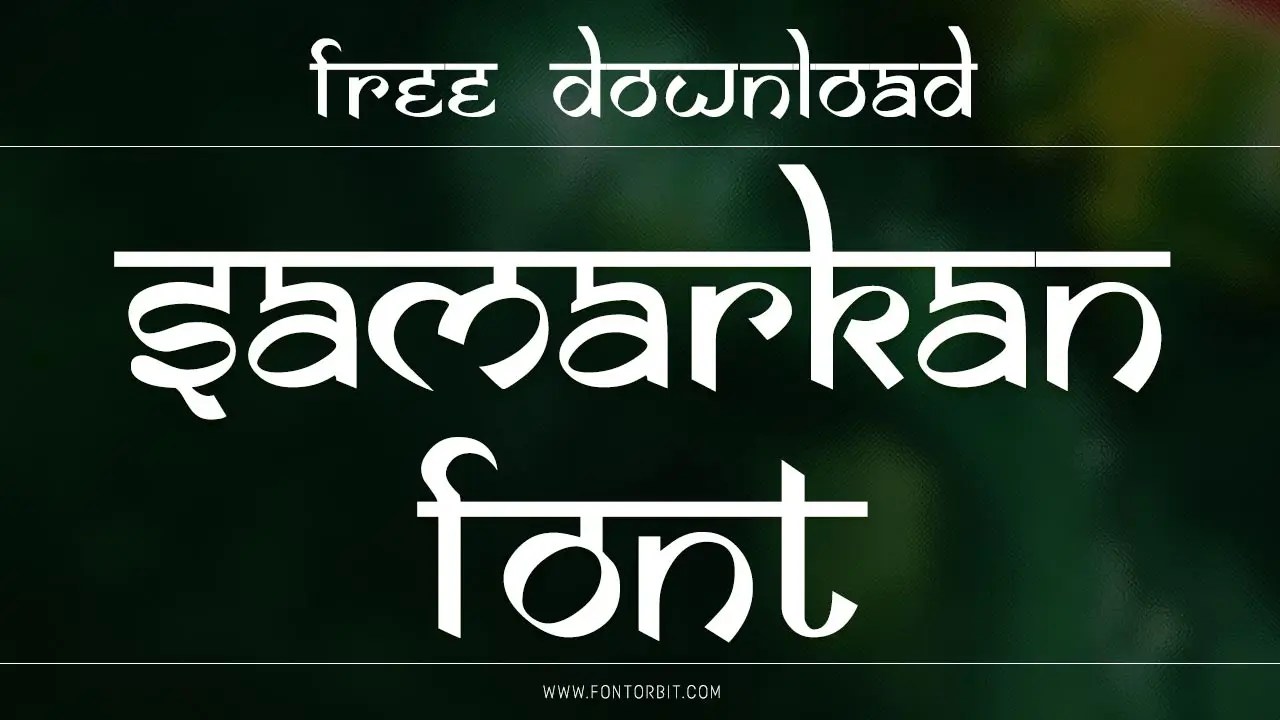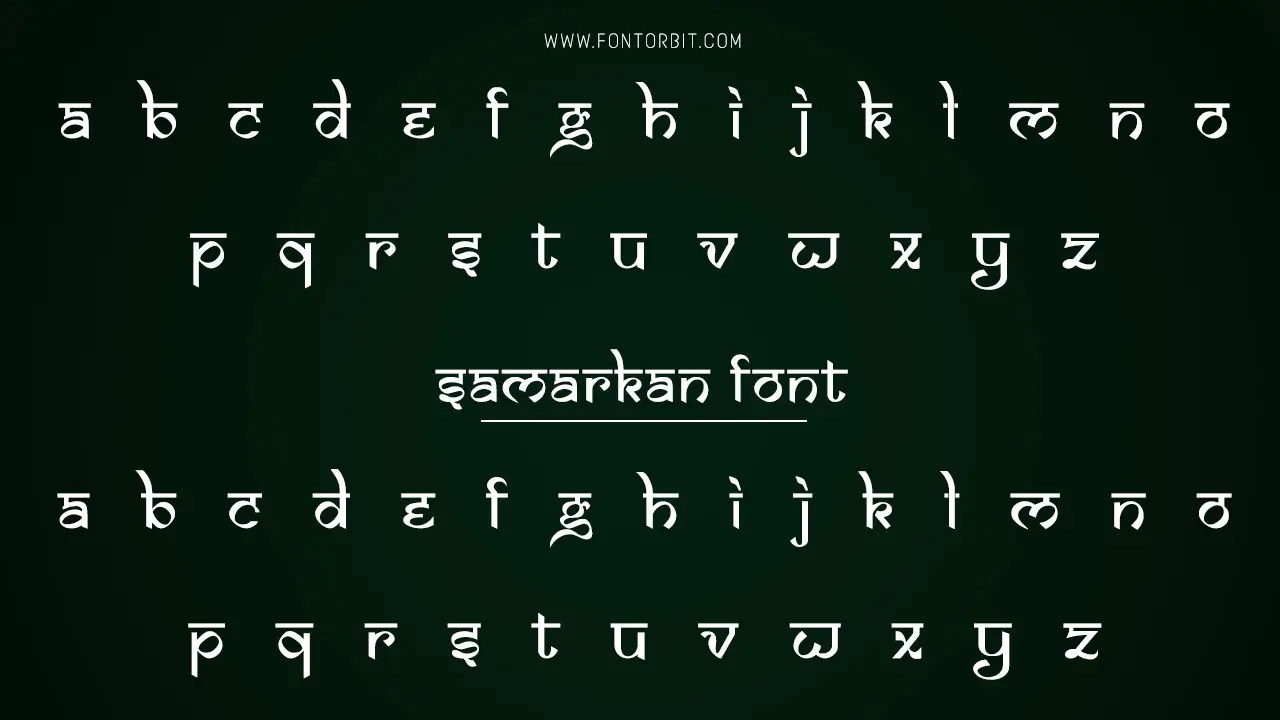
The Samarkan Font is an eye-catching typeface inspired by Hindi font aesthetics. Designed by Titivillus Foundry, with its distinctive handwriting font style, this normal TrueType font is widely used in branding, web design, and logo creation. If you’re working on a design project that requires an Indian or cultural theme, Samarkand is a perfect choice.
Samarkan Font Information & Features
The Samarkand Font Family includes:
- Samarkan Normal
- Samarkan Oblique
Key Features:
- Category: Handwriting & Decorative
- Character Support: Latin Extended-A, Spacing Modifier Letters
- Inspired by: Devanagari script and traditional Hindi fonts
- Best for: Posters, branding, headings, and logos
- Font Rating: Highly rated for its unique aesthetic
Where Can You Use Samarkan Font?
- Logos & Branding – Perfect for businesses with an ethnic or cultural theme.
- Web Design – Enhances websites related to travel, food, or traditional crafts.
- Headings & Titles – Adds a distinctive style to book covers, banners, and posters.
- Personal Projects – Suitable for invitation cards, event materials, and creative artwork.
- Email Graphics – Decorative headers for newsletters and announcements.
Final Thoughts
The Samarkan font is a must-have for designers working on projects that need a cultural, and artistic touch. With its intricate character map and handwriting font aesthetics, it enhances everything from branding and web design to logos and personal projects. If you’re looking for inspiration in typography, Samarkan is a top choice!
2.Does Samarkan Support The Devanagari Script?
No, it is a faux Hindi font, meaning it mimics Hindi letters but does not include real Devanagari characters.
4.What Are The Best Color Schemes For Samarkan Font?
It pairs well with warm colors like gold, red, and orange, enhancing its traditional feel.
6.What Is The Best Font Pairing For Samarkan?
- Montserrat – Provides a modern contrast
- Roboto Slab – Balances its decorative style
- Poppins – A contemporary touch